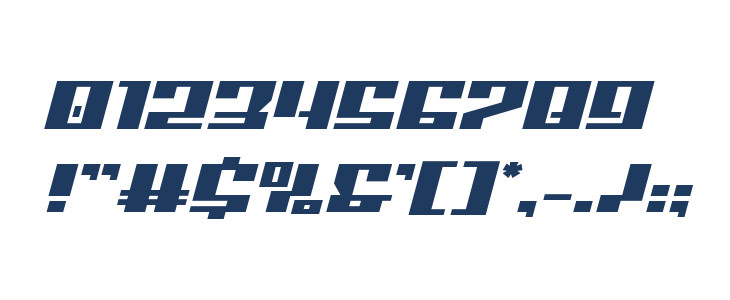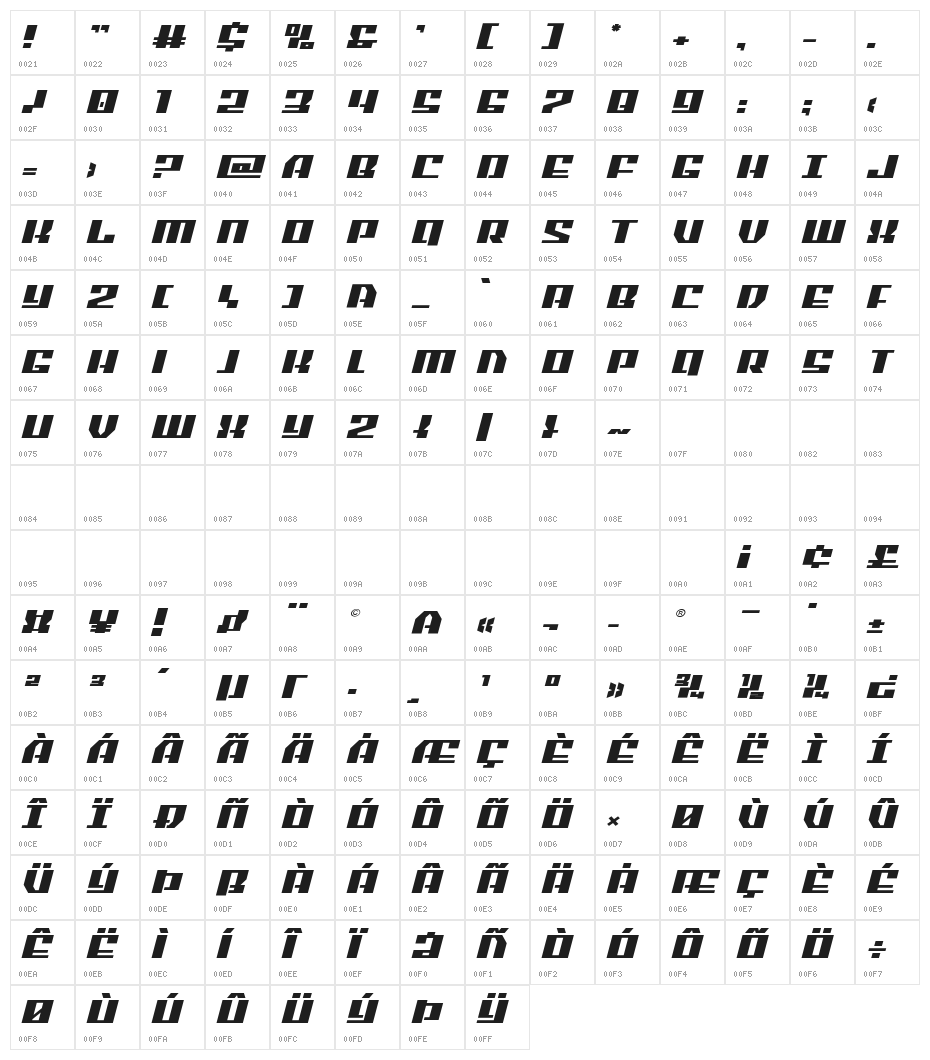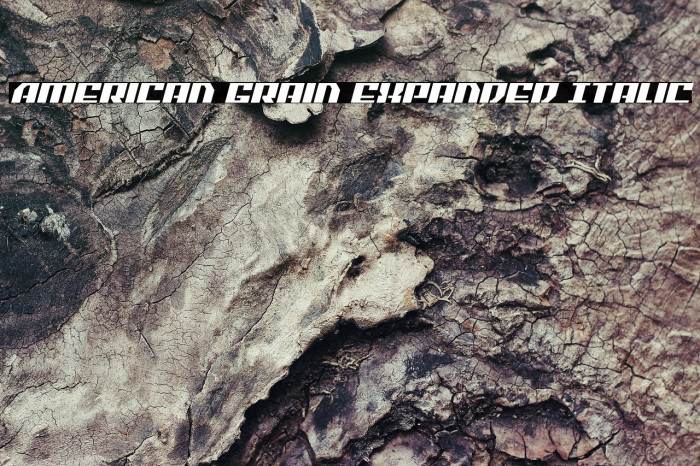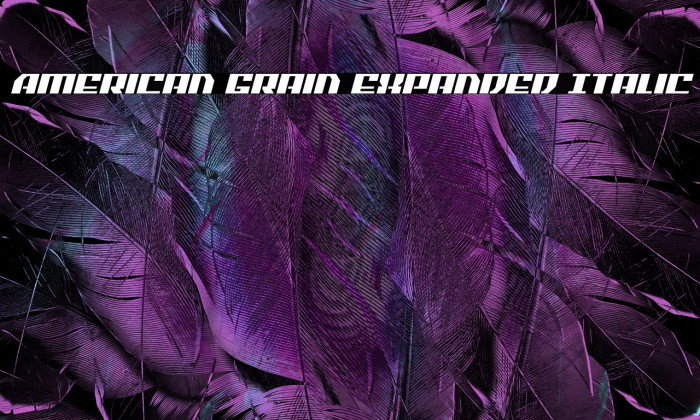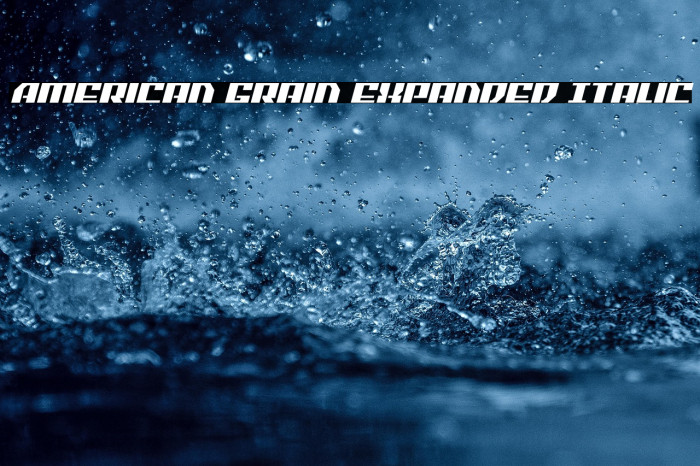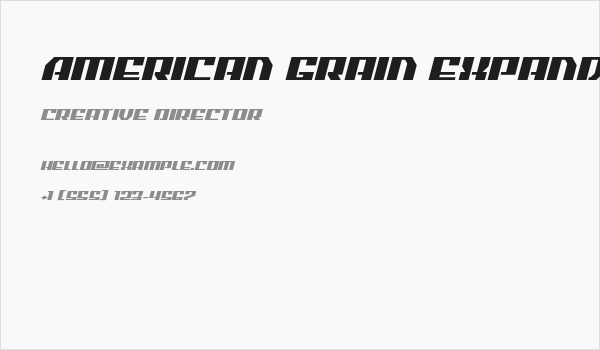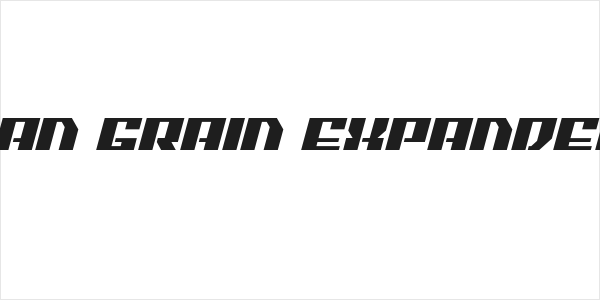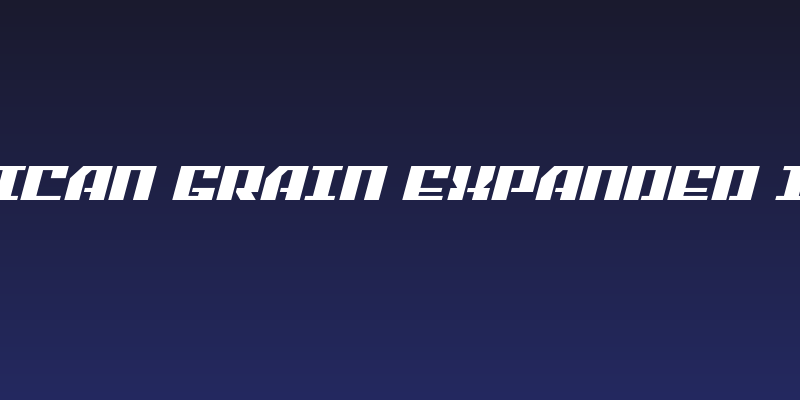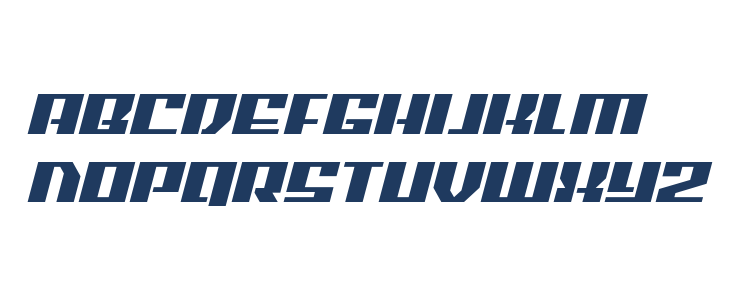
American Grain Expanded Italic Font
American Grain Expanded Italic Description
This font features a bold and dynamic design with an expanded and italicized style. The characters are sharply angled, giving a sense of movement and energy. The uppercase letters are particularly striking, with strong geometric shapes and a futuristic feel. The numbers and special characters maintain the same boldness and angularity, ensuring consistency across all glyphs. This font is ideal for projects that require a modern and impactful look, such as sports branding, posters, or digital media.
| Proposed Projects | Ideal for sports branding, posters, digital media, and any project needing a modern, impactful look. |